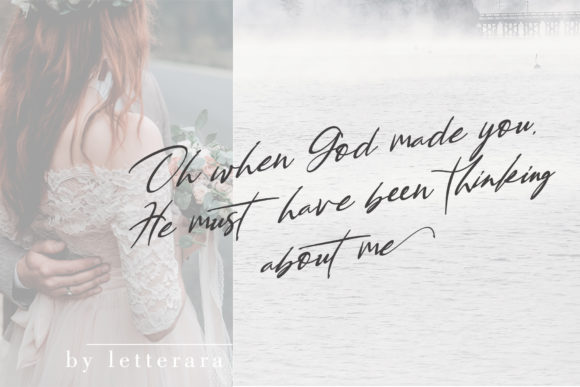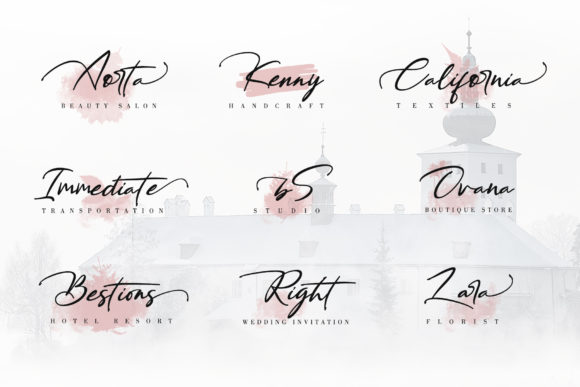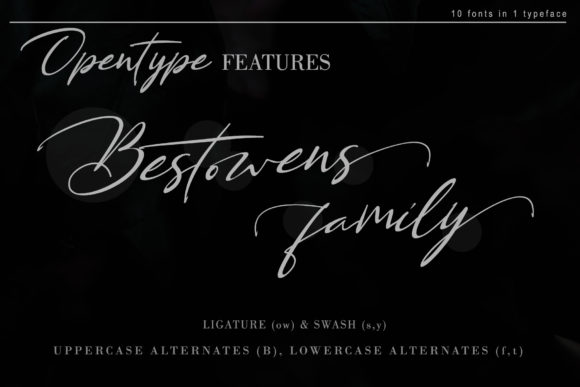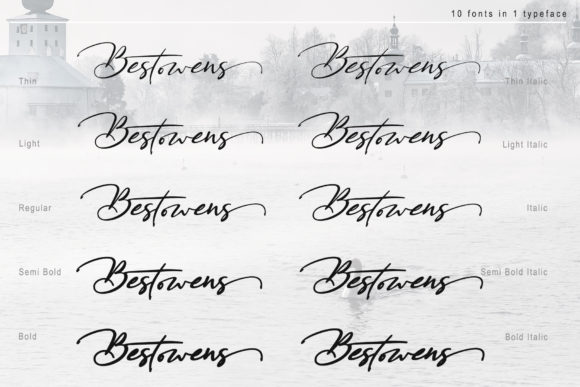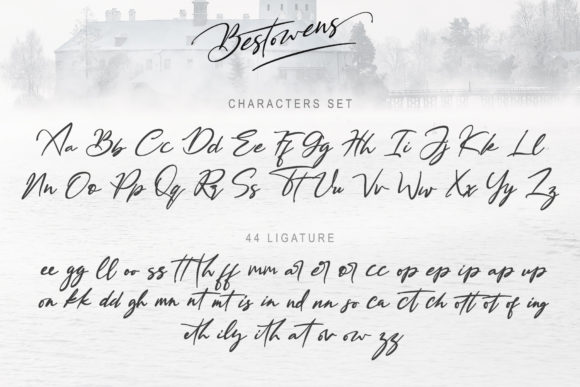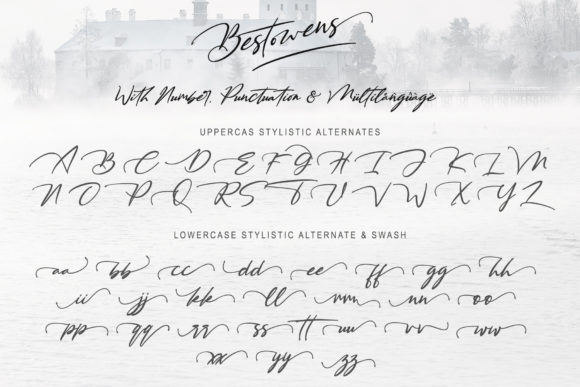
The Perfect Handwritten Touch: Bestowens Family Font
Have you ever found yourself staring at a blank canvas, trying to capture the perfect essence of a design? For many creatives, that moment of inspiration can be elusive, but what if you had the perfect tool to bring your vision to life? That’s where the Bestowens Family Font comes in – a charming, handwritten typeface that adds a touch of elegance to any project.
Designed to evoke feelings of sweetness and innocence, the Bestowens Family Font is the perfect addition to any design project. Its light and airy feel makes it ideal for everything from wedding invitations to children’s book illustrations. With its unique charm, this font is a valuable asset for designers looking to add a personal touch to their work.
Bestowens Family Font Key Features
- Font Family: Bestowens comes in three font styles: Regular, Italic, and Bold, providing a versatile range of options for designers and typographers.
- Unique Characteristics: The Bestowens Family Font features a distinctive, elegant design with a mix of modern and classic elements, making it ideal for use in high-end branding, publishing, and advertising projects.
Bestowens Family Font Review
Overall, I think the Bestowens Family Font has a lot of potential, but it also has some areas where it falls short.
- The font’s unique blend of vintage and modern elements is quite charming.
- The wide range of weights and styles offers a lot of flexibility for designers.
- The font’s legibility is generally good, even at small sizes.
- The Bestowens Family Font has a lot of character, which can be a great asset for projects that need a bit of personality.
- The font’s kerning can be a bit wonky in some cases, which can affect readability.
- The font’s design may not be suitable for all types of projects, particularly those that require a more formal or serious tone.
- The Bestowens Family Font may not be the best choice for body text, as it can be a bit too ornate for larger blocks of text.
While the Bestowens Family Font has some limitations, I think it’s a great choice for designers who are looking for a unique and charming font for their projects. With a bit of careful planning and use, I think this font can be a real showstopper.
Tips for Getting the Most Out of Bestowens Family Font
Use Bestowens Family Font for titles, headings, and body text in designs that require a elegant and sophisticated look.
Pair Bestowens Family Font with other elegant fonts for a unique and stylish design.
Bestowens Family Font is perfect for:
Corporate branding and marketing materials
Magazine and newspaper headlines
Book titles and author names